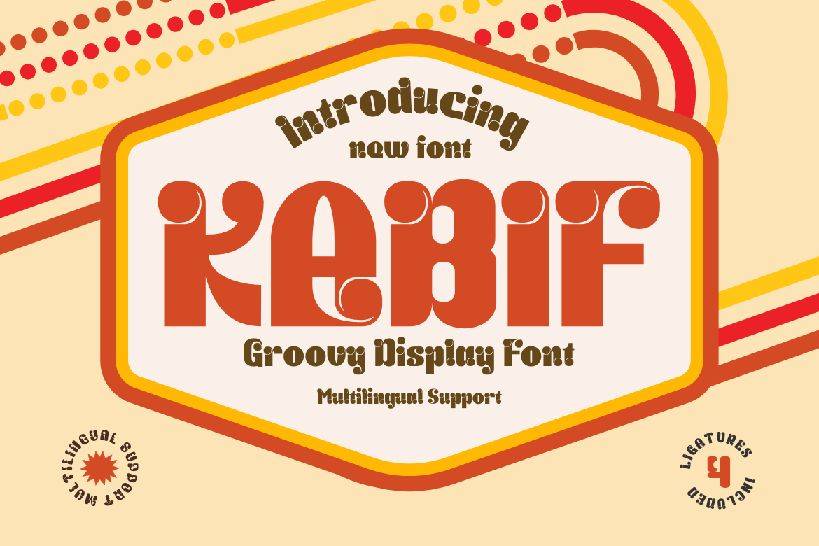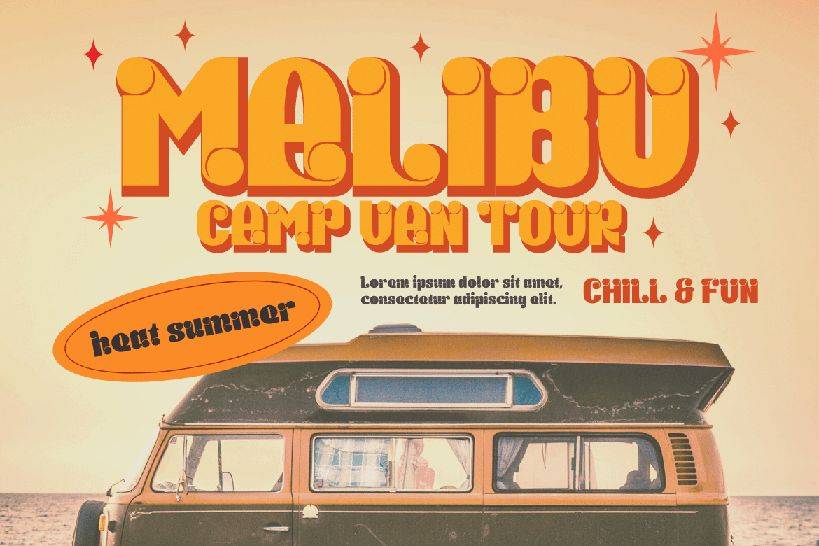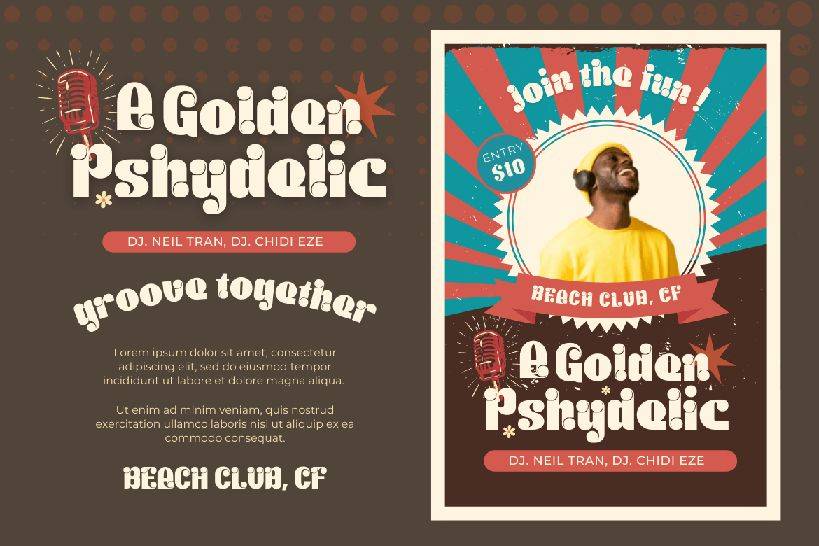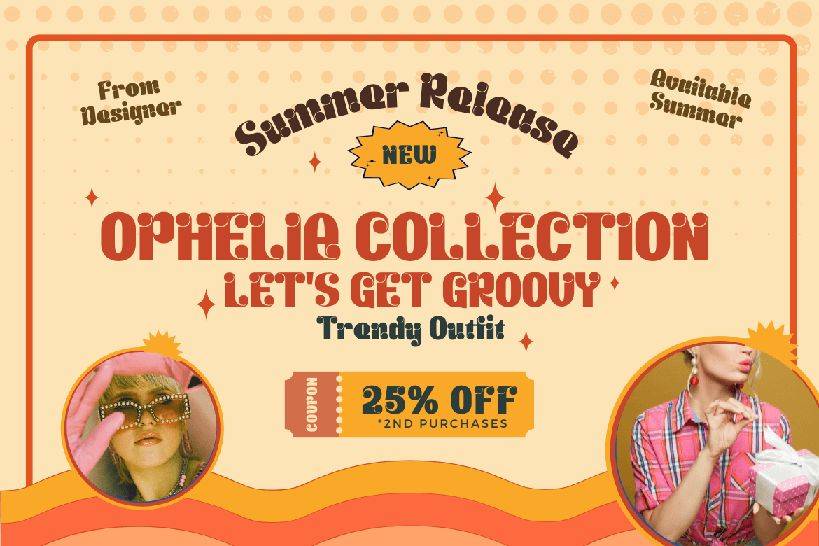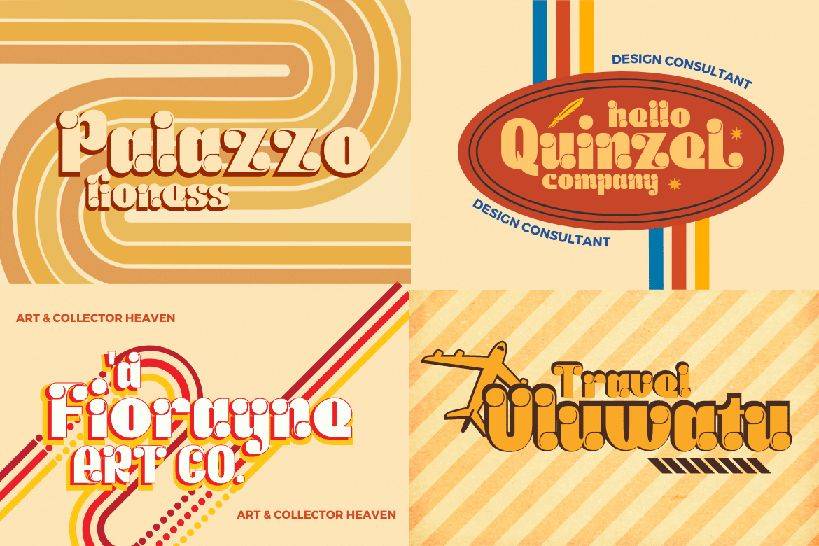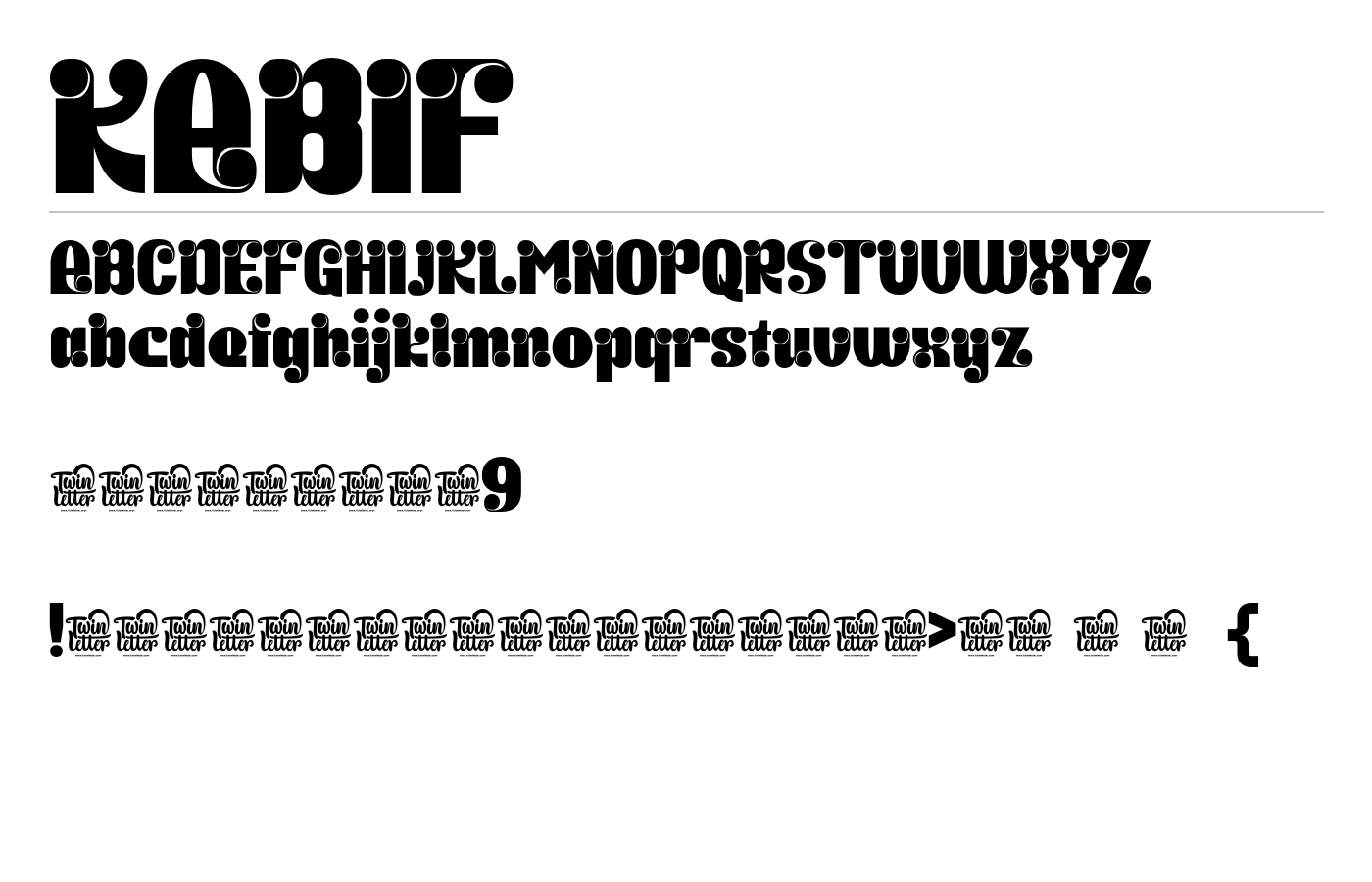
Kabif is a bold, playful display font with a heavy weight and unique rounded shapes featuring decorative circular terminals that give it a quirky, artistic vibe. Its condensed, solid letterforms and distinct details make it ideal for eye-catching headlines, logos, and creative branding projects that want to stand out with a fun and modern personality. This font works best where strong visual impact and originality are key, such as in posters, packaging, and dynamic editorial designs.
Kabif Font
About Kabif Font